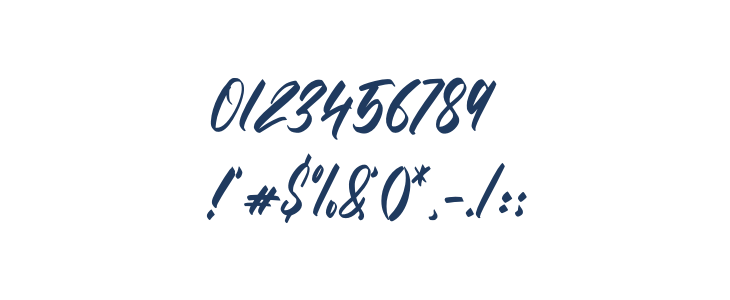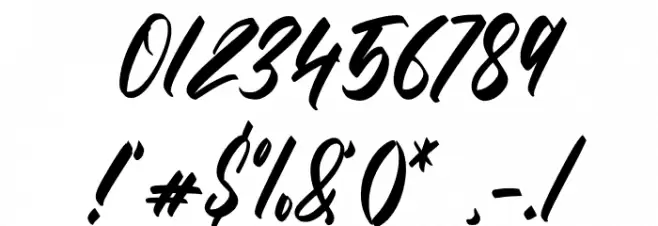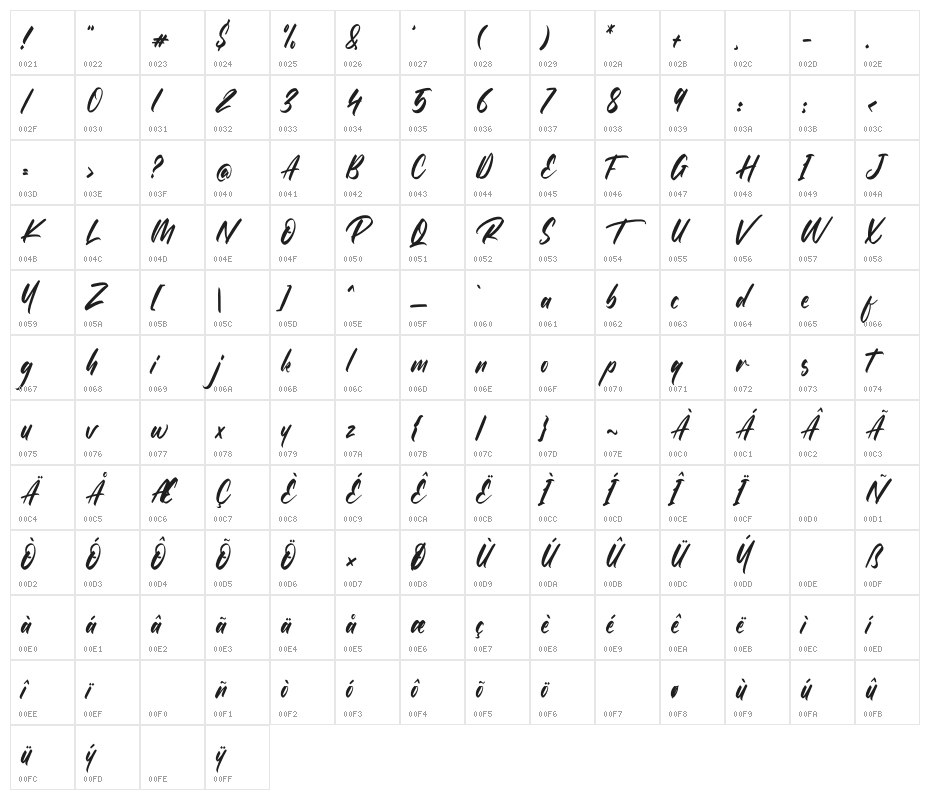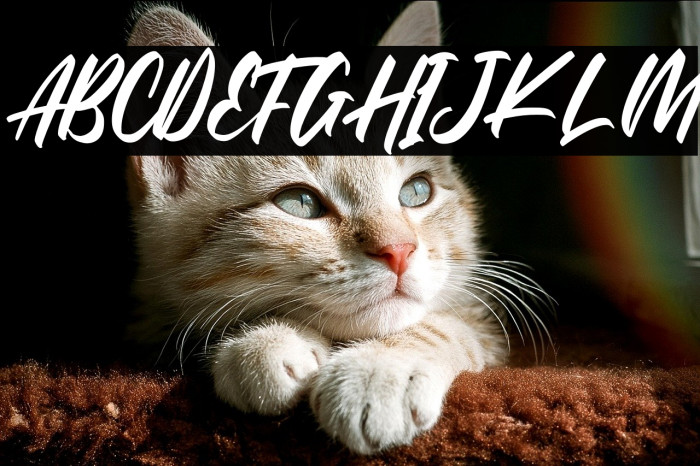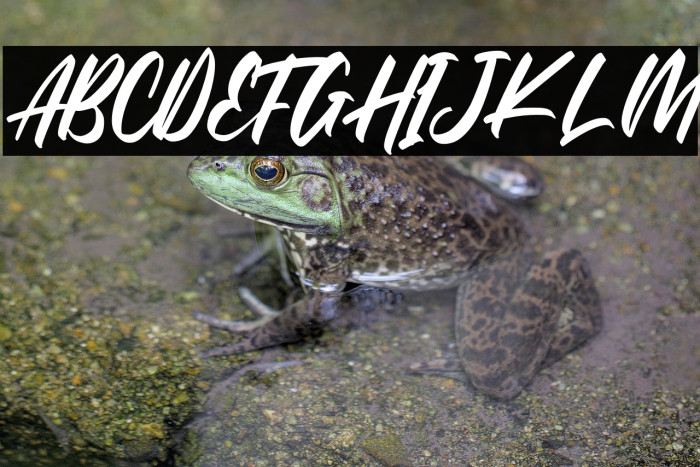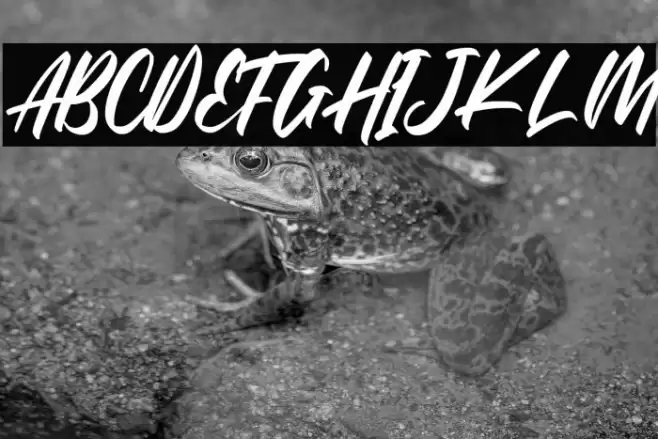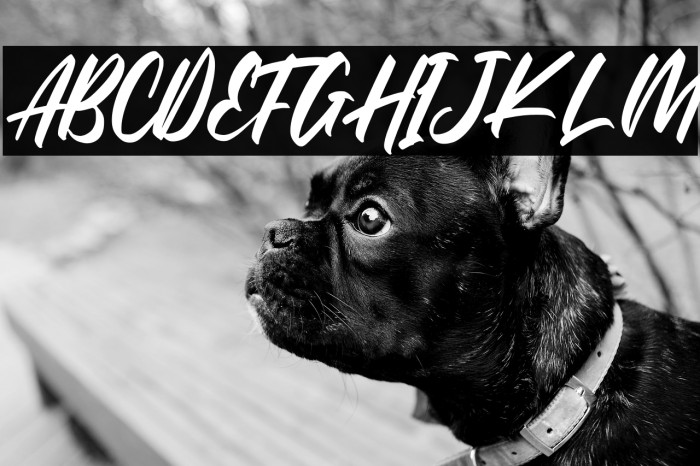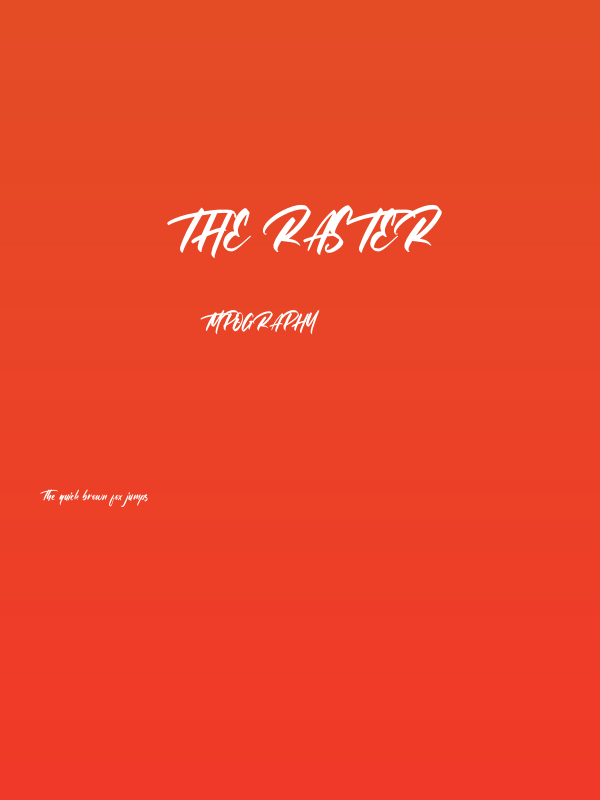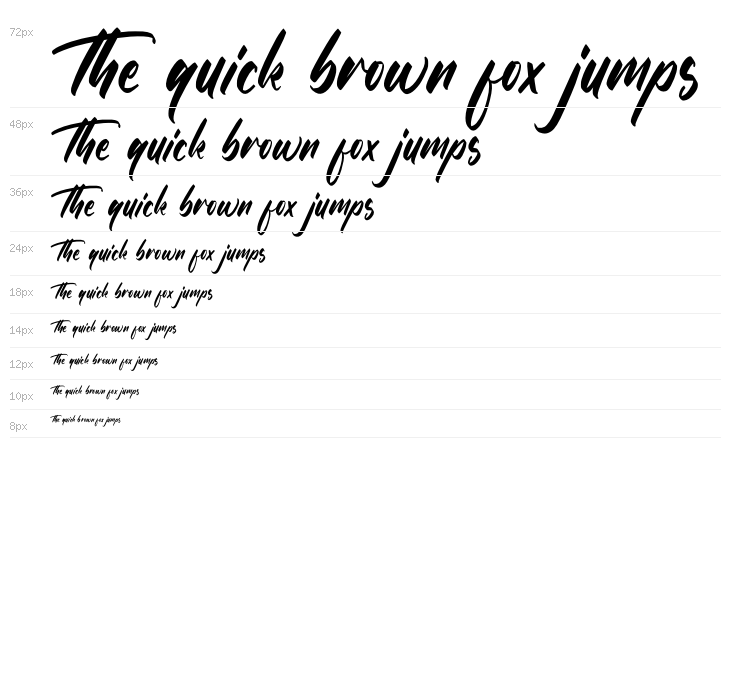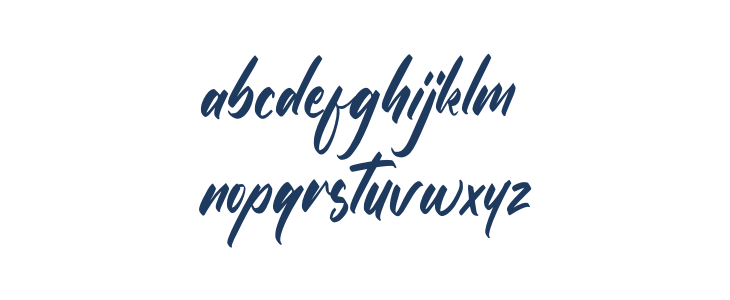
The Raster Font
The Raster Description
This font features a bold, expressive script style with a dynamic and flowing appearance. The characters are connected, giving it a handwritten feel that is both elegant and casual. The strokes are thick and consistent, providing a strong visual impact. The uppercase letters are tall and slightly slanted, while the lowercase letters maintain a cohesive flow with a slight slant as well. Numbers and special characters are designed to match the overall style, ensuring uniformity across all elements. This font is perfect for projects that require a personal touch or a creative flair.